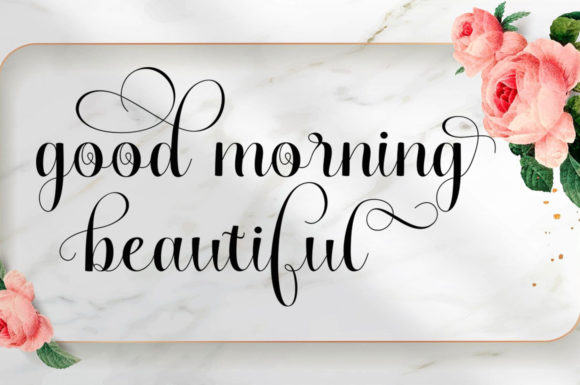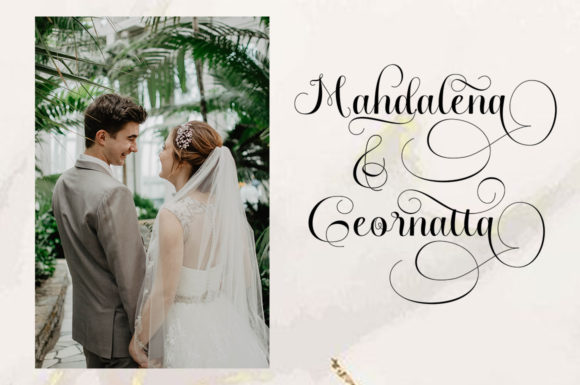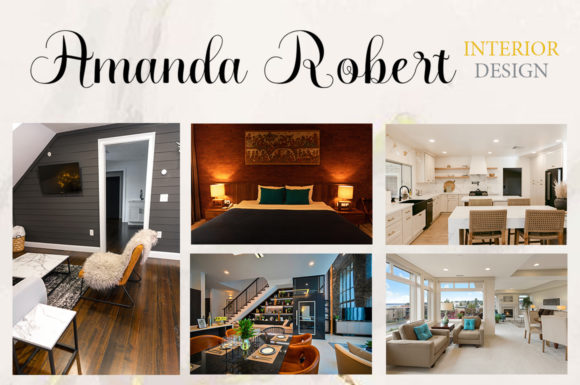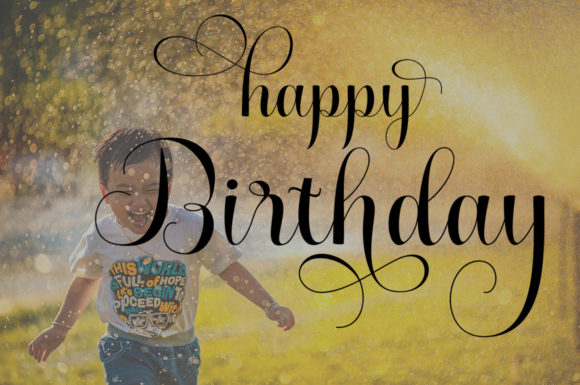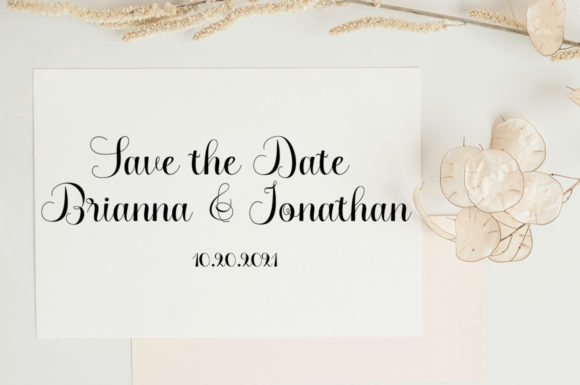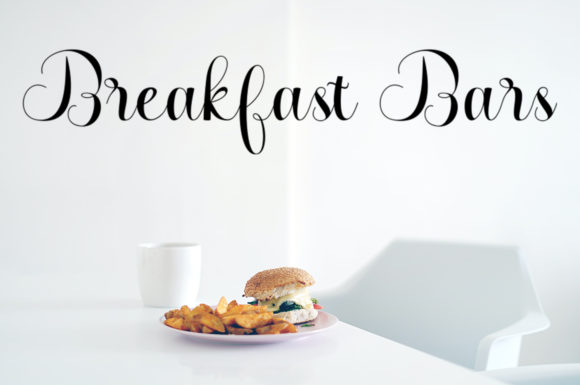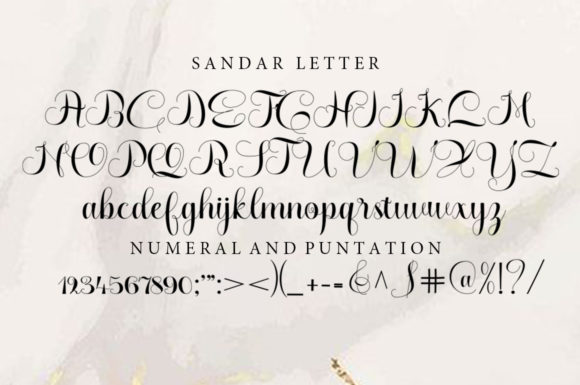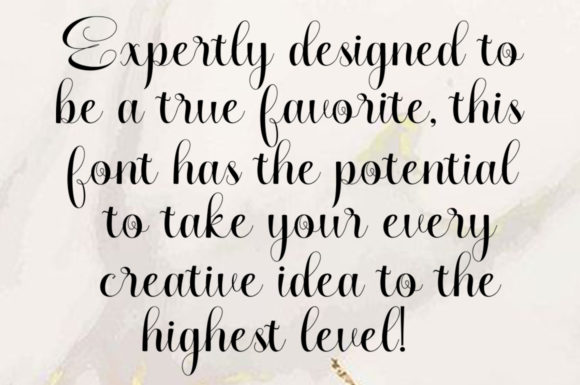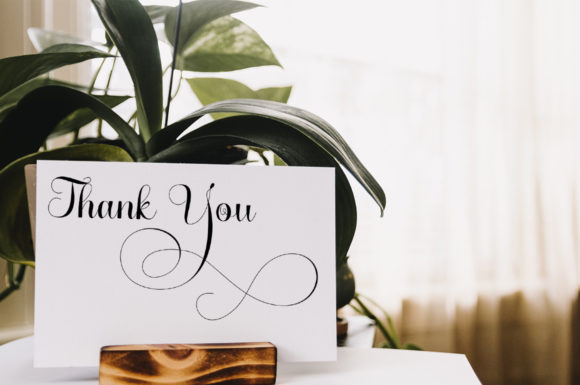
Fadila Font
About Fadila Font
Fadila is a delicate and elegant handwritten font. Its distinct and well rounded letters make this font a masterpiece. This font is PUA encoded which means you can access all of the glyphs and swashes with ease!